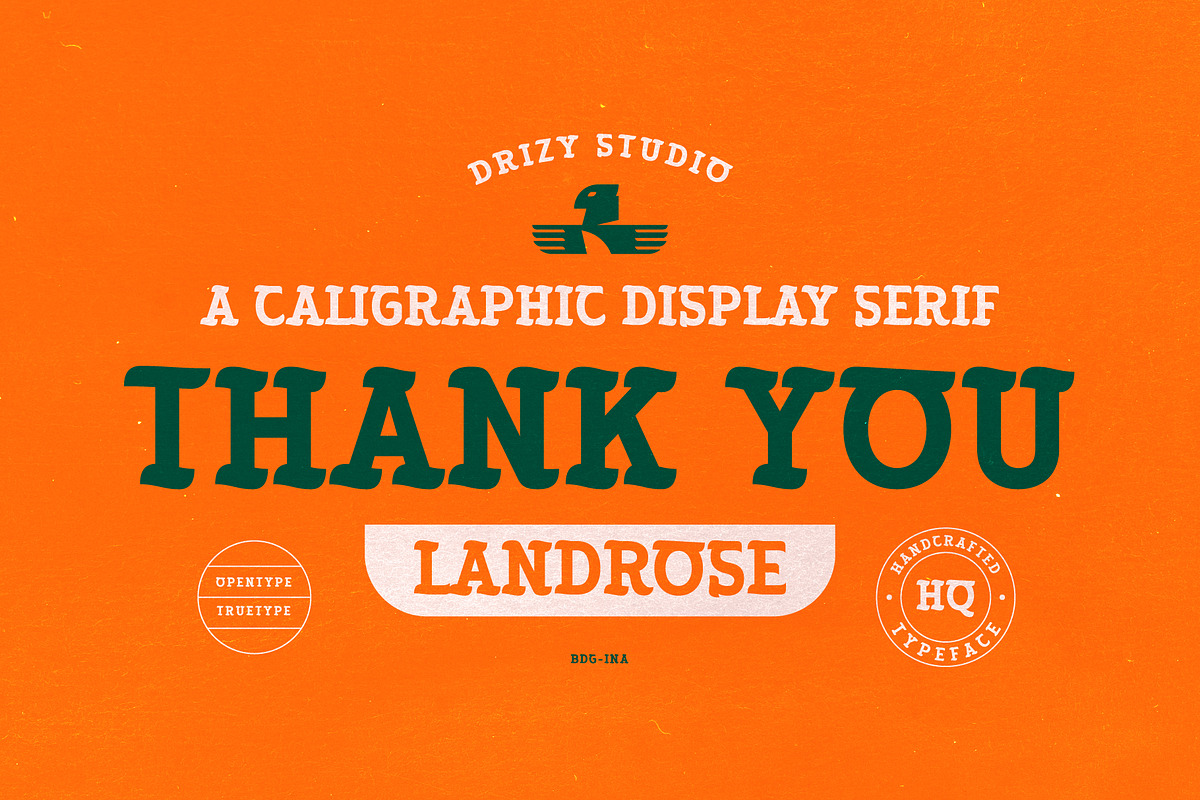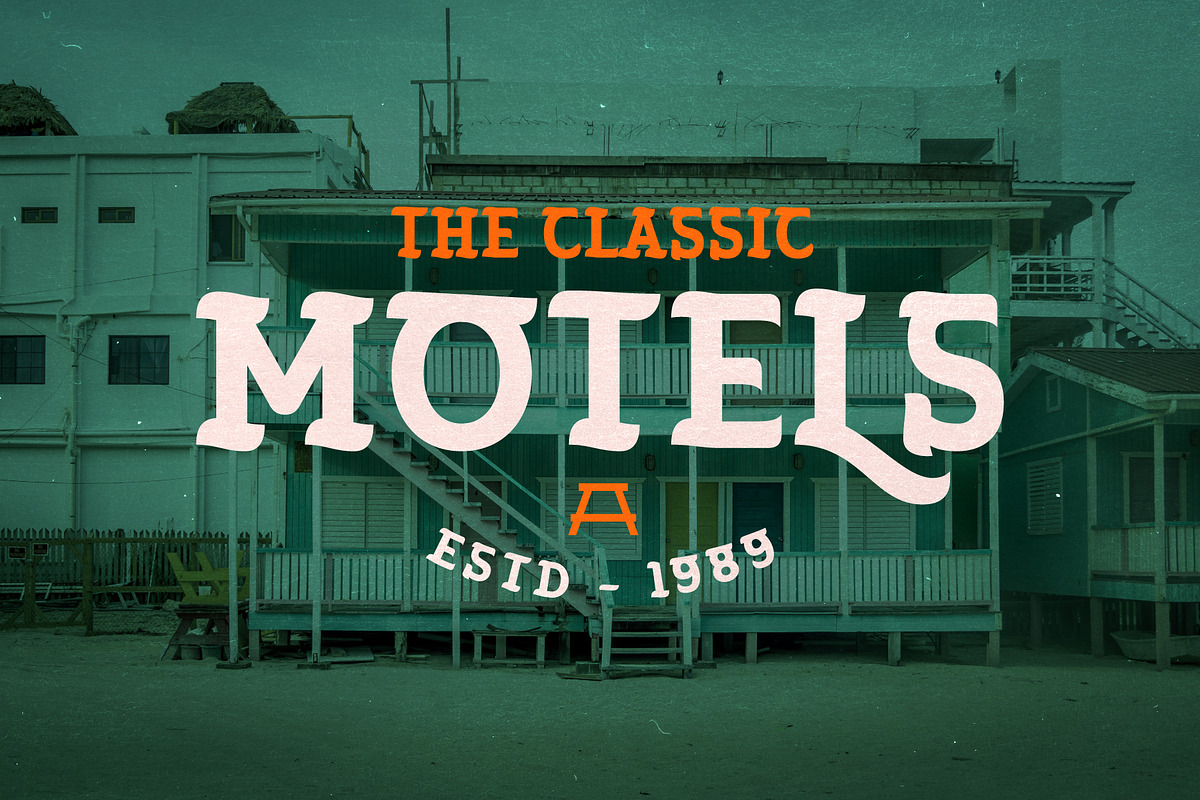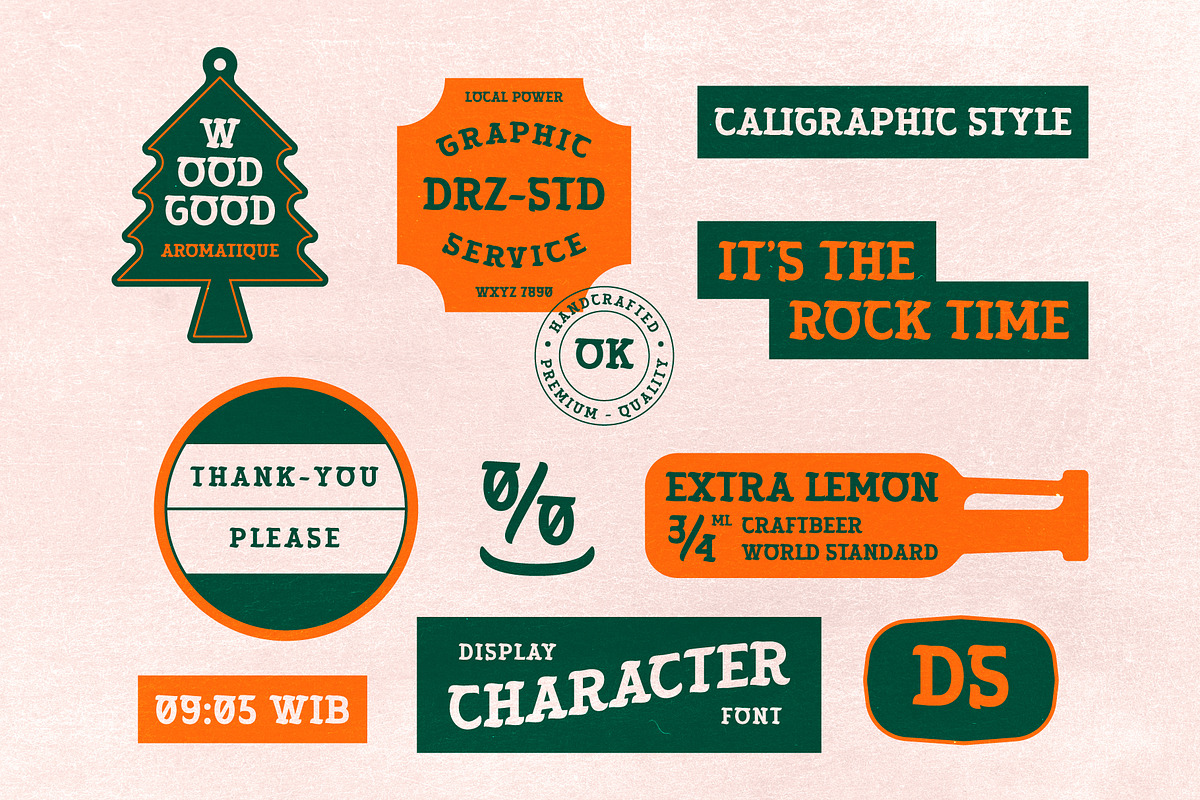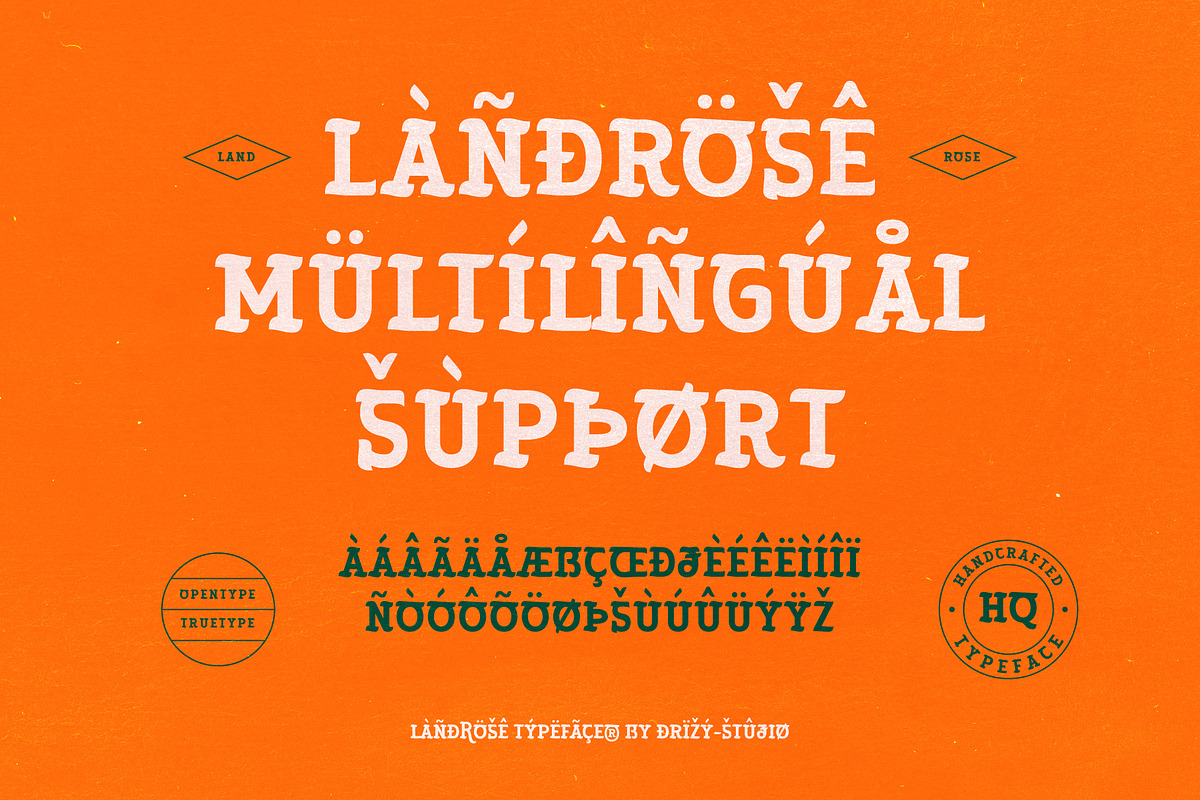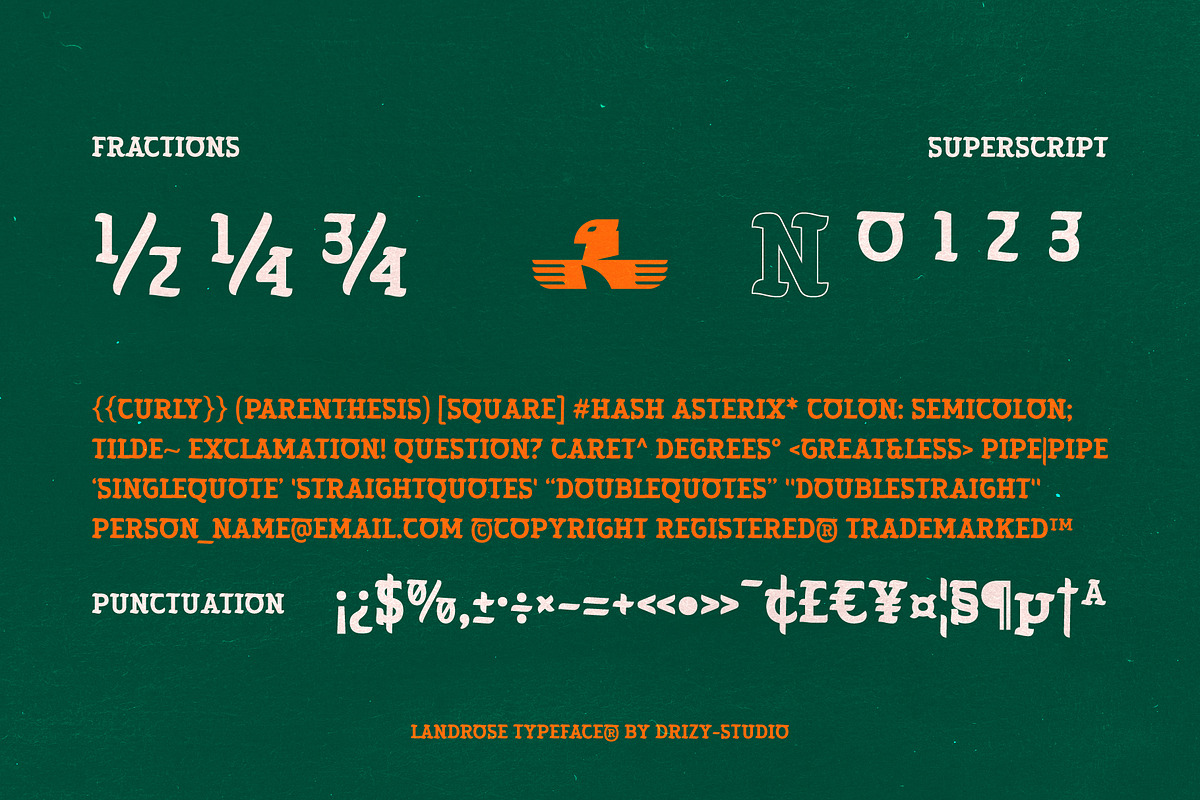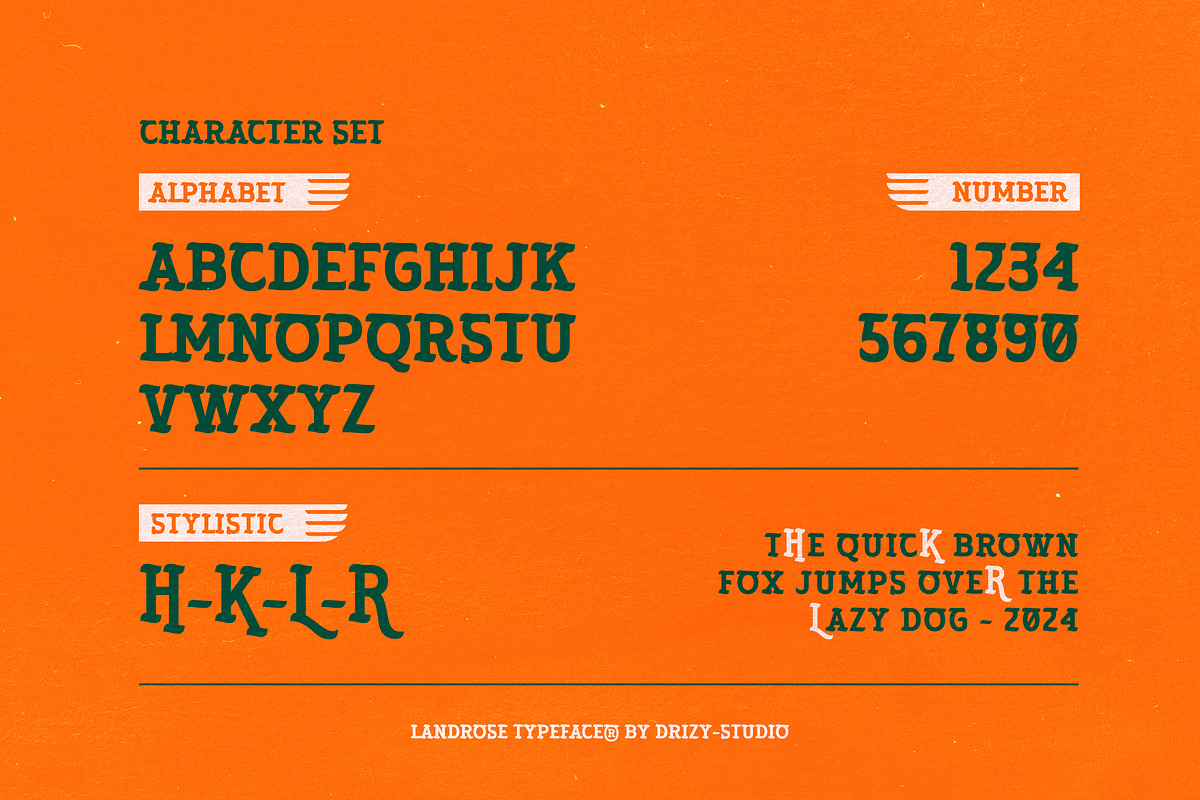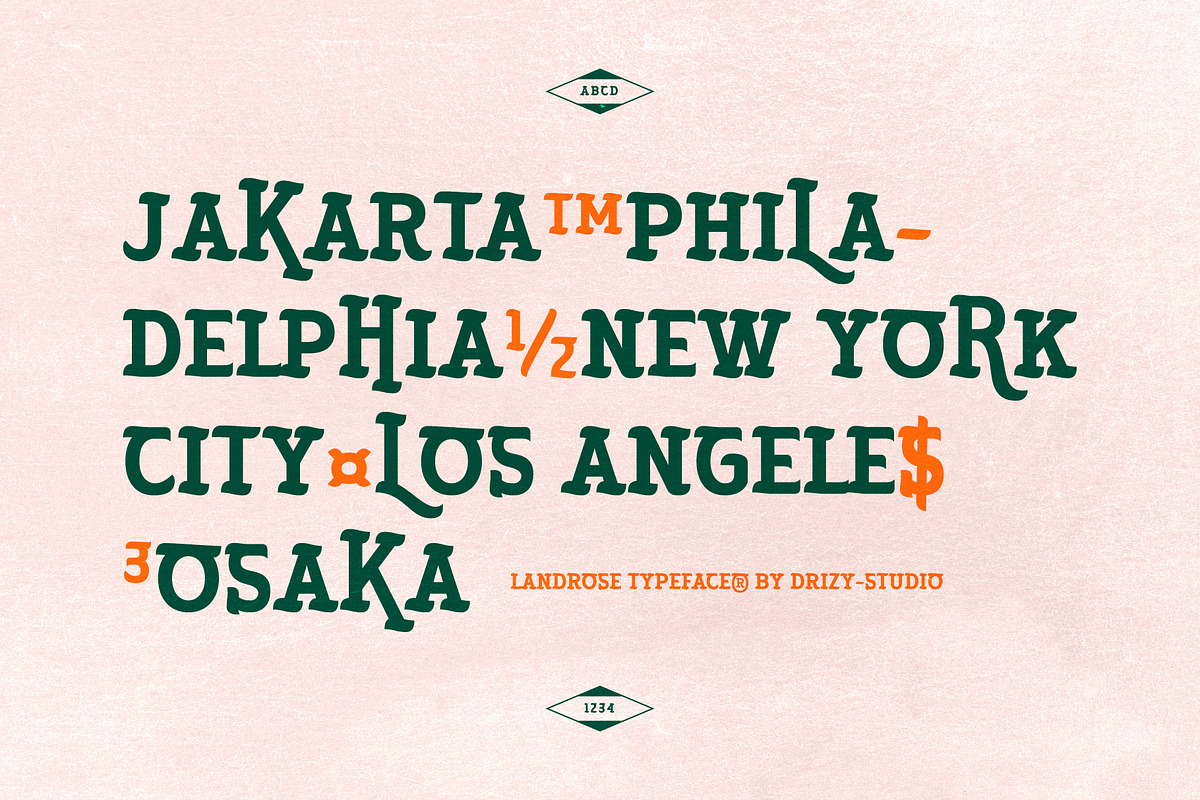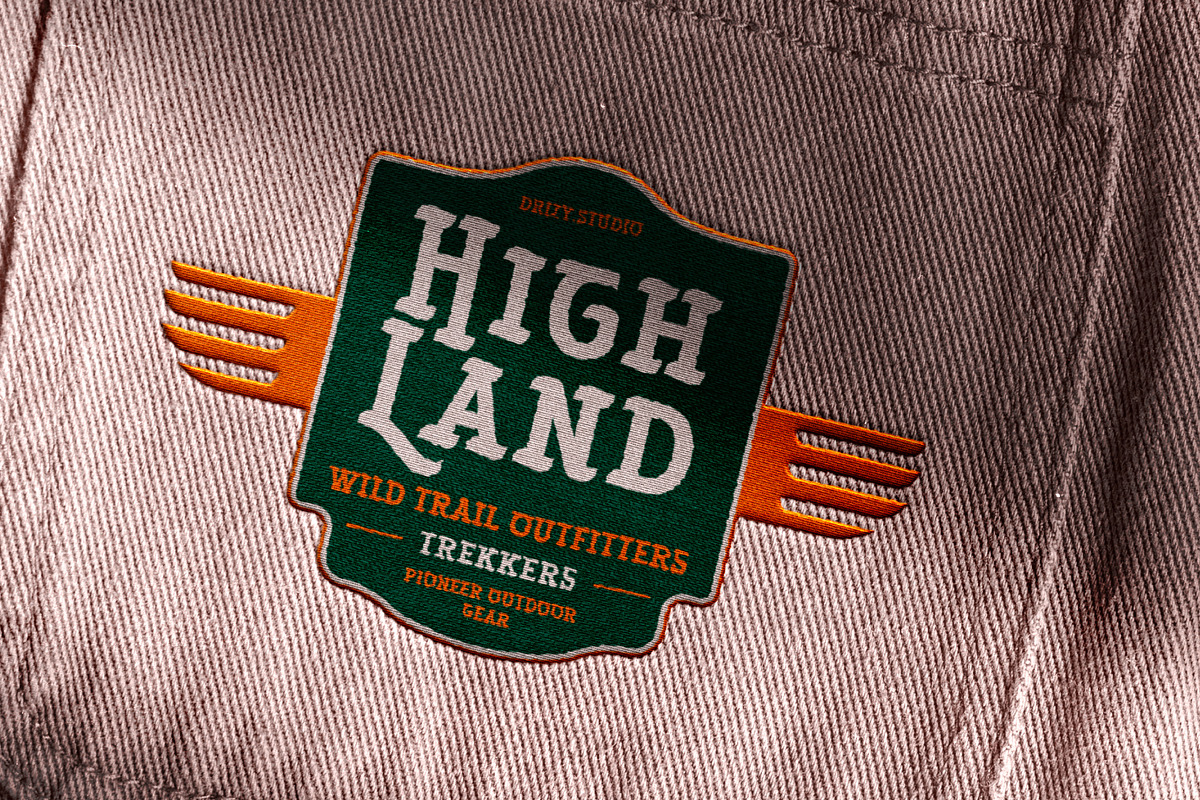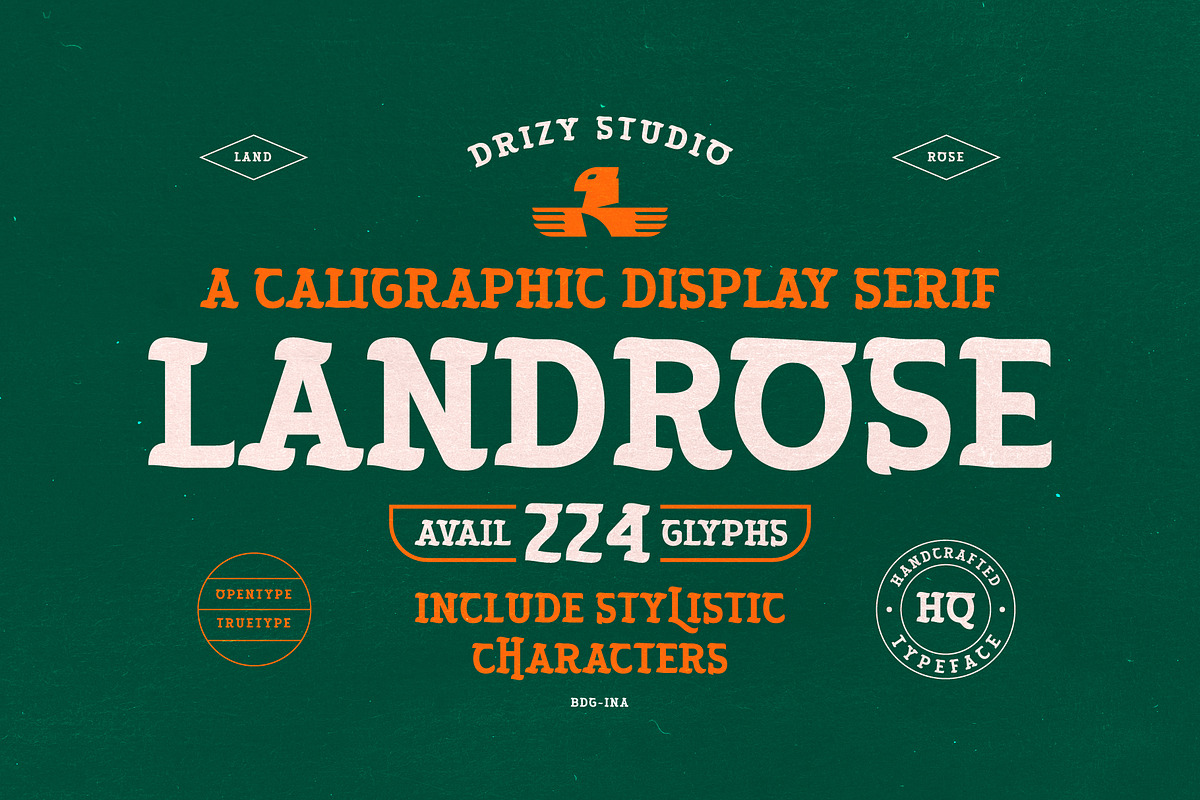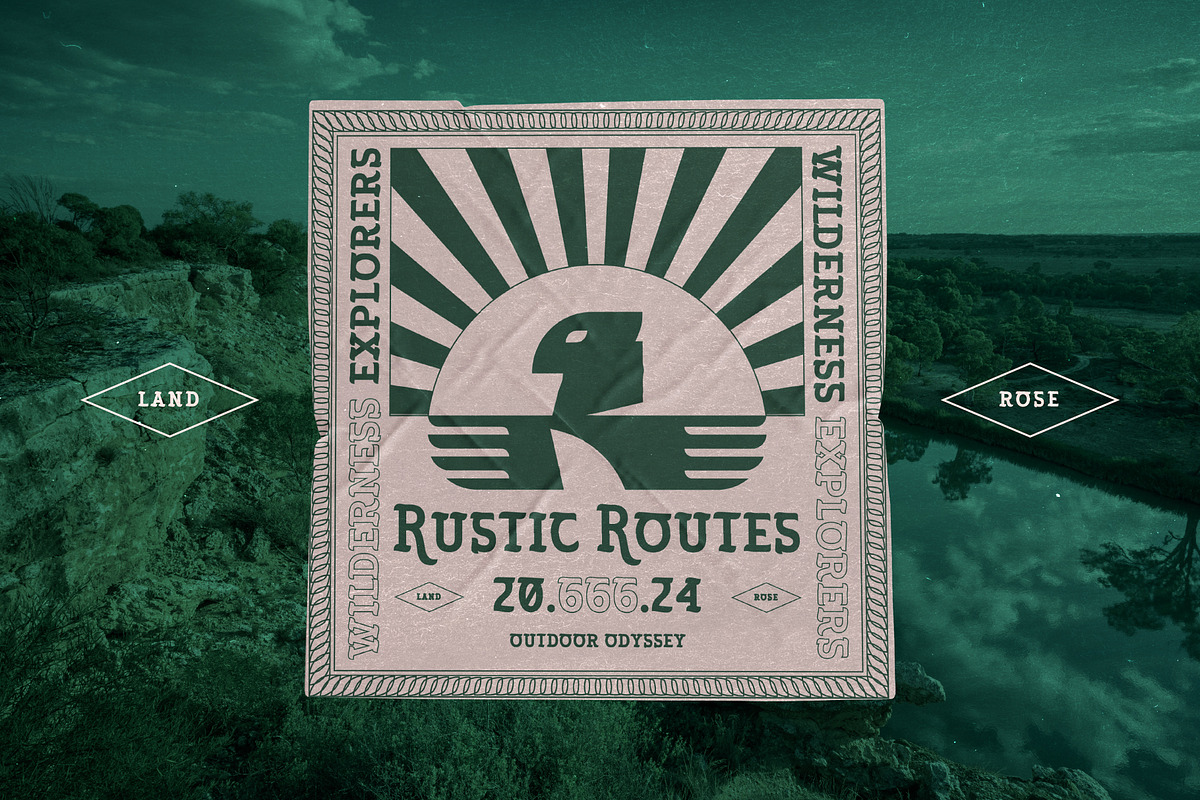
Landrose – Caligraphic Display Serif
Landrose – Caligraphic Display Serif Font
Landrose an adventurous typographic journey into the realm of creativity and exploration. Crafted with precision and imbued with the spirit of discovery, this font from the Adventures Patch collection is a testament to the artistry of typography. Landrose captures the essence of adventure, evoking images of ancient maps, distant lands, and untold stories waiting to be unveiled. Its elegant serifs and flowing curves carry the imagination to far-off places, where every letter is a symbol of untamed wilderness and daring escapades. Landrose stands as a trusted companion, guiding the way with its timeless charm and boundless possibility. Perfect for bold headlines, captivating titles, or adding a touch of sophistication to any design, this font invites you to set sail on a typographic adventure like no other.
Landrose features:
- Character Set (All Caps)
- Punctuation & Numbers
- Alternates “K, L, R”